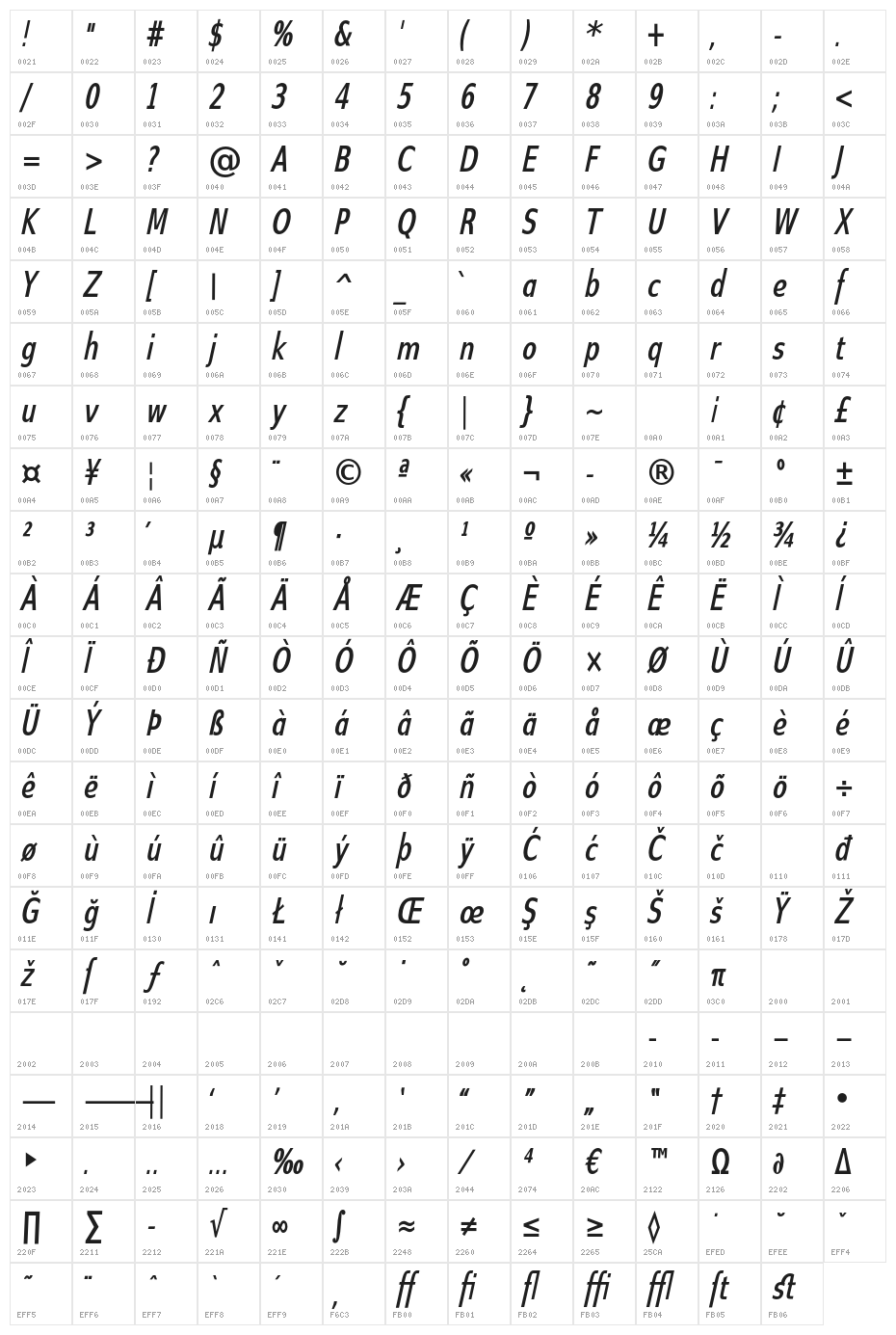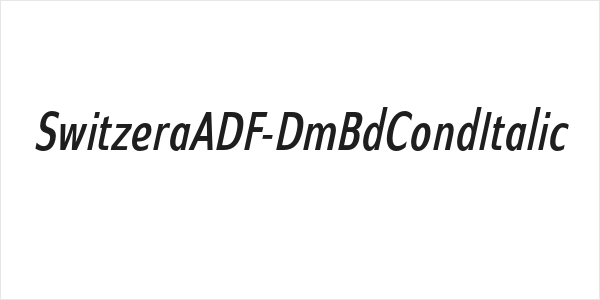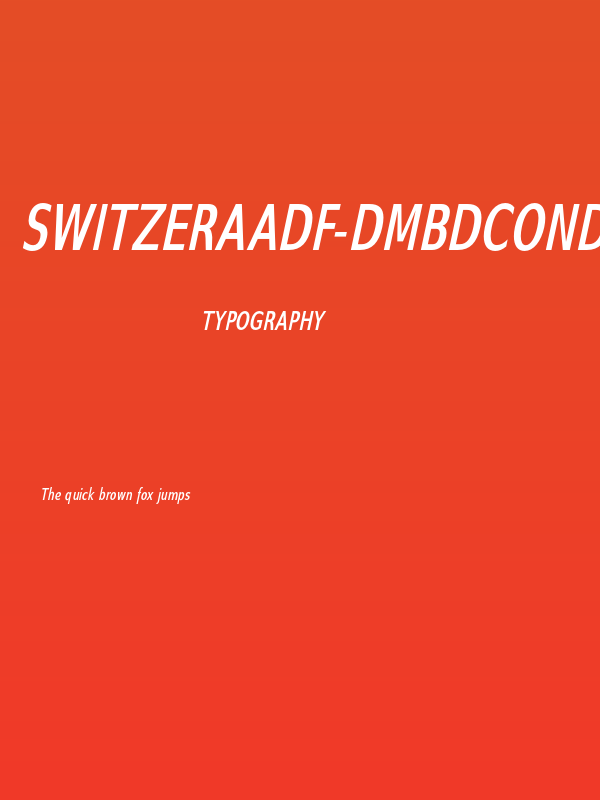
SwitzeraADF-DmBdCondItalic Font
SwitzeraADF-DmBdCondItalic Description
This font features a modern and sleek design with a condensed width and italic style. The characters are bold, providing a strong visual impact, while maintaining a clean and professional appearance. The strokes are consistent in thickness, offering a medium contrast that enhances readability. The overall style is contemporary, making it suitable for a variety of design applications. The character spacing is tight, which contributes to its compact and efficient look. This font is versatile, ideal for use in both digital and print media, where a modern and dynamic feel is desired.
| Proposed Projects | Ideal for branding, advertising, headlines, and digital media where a modern and dynamic aesthetic is required. |